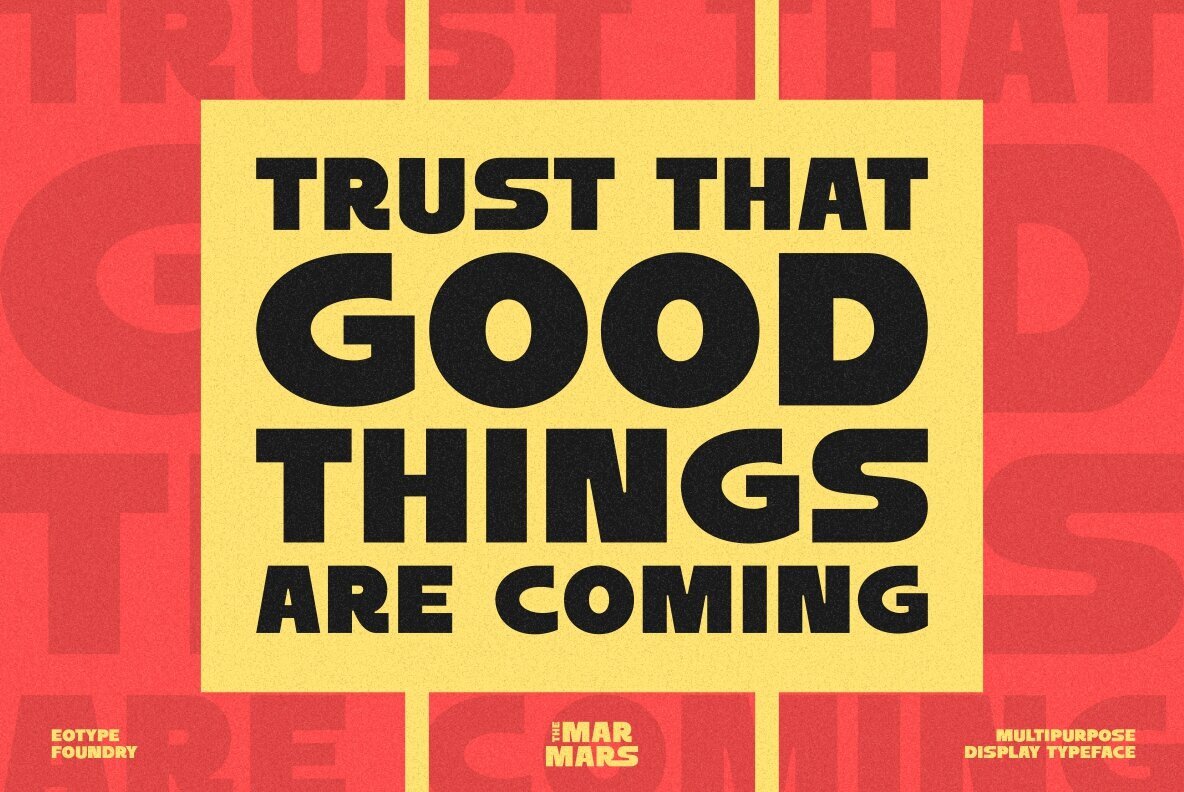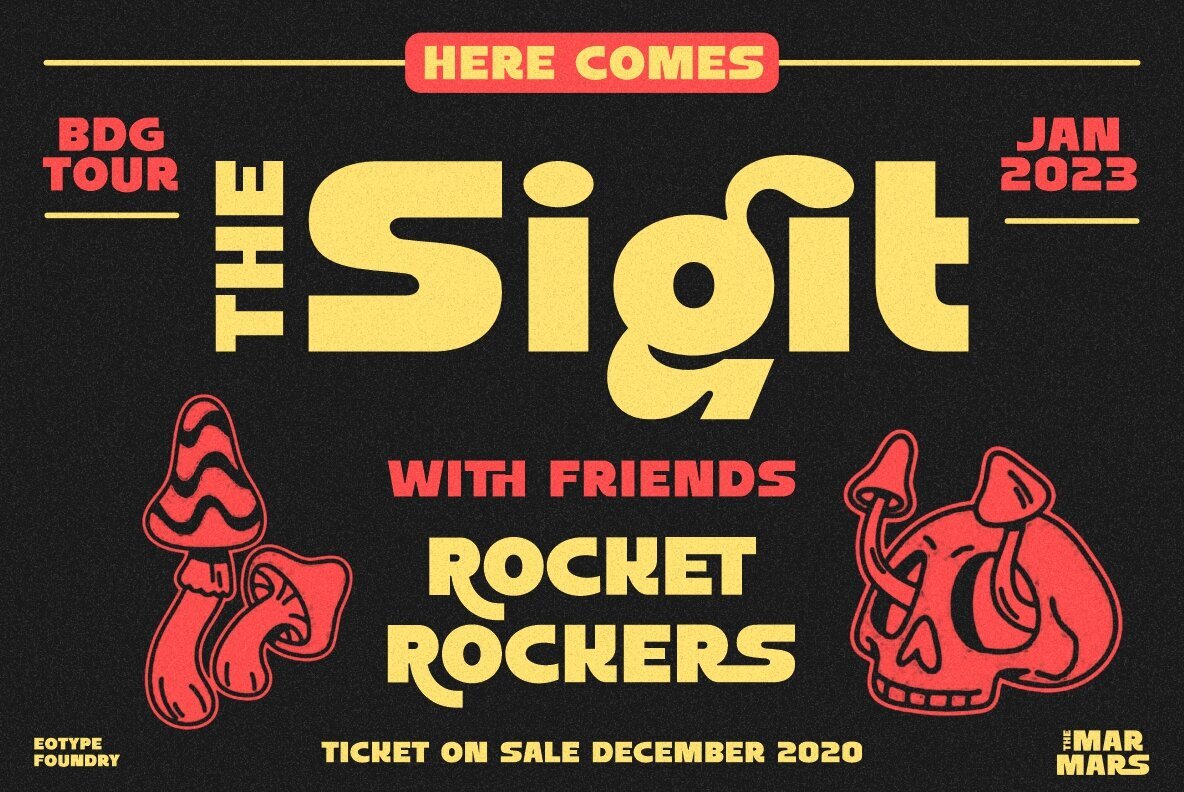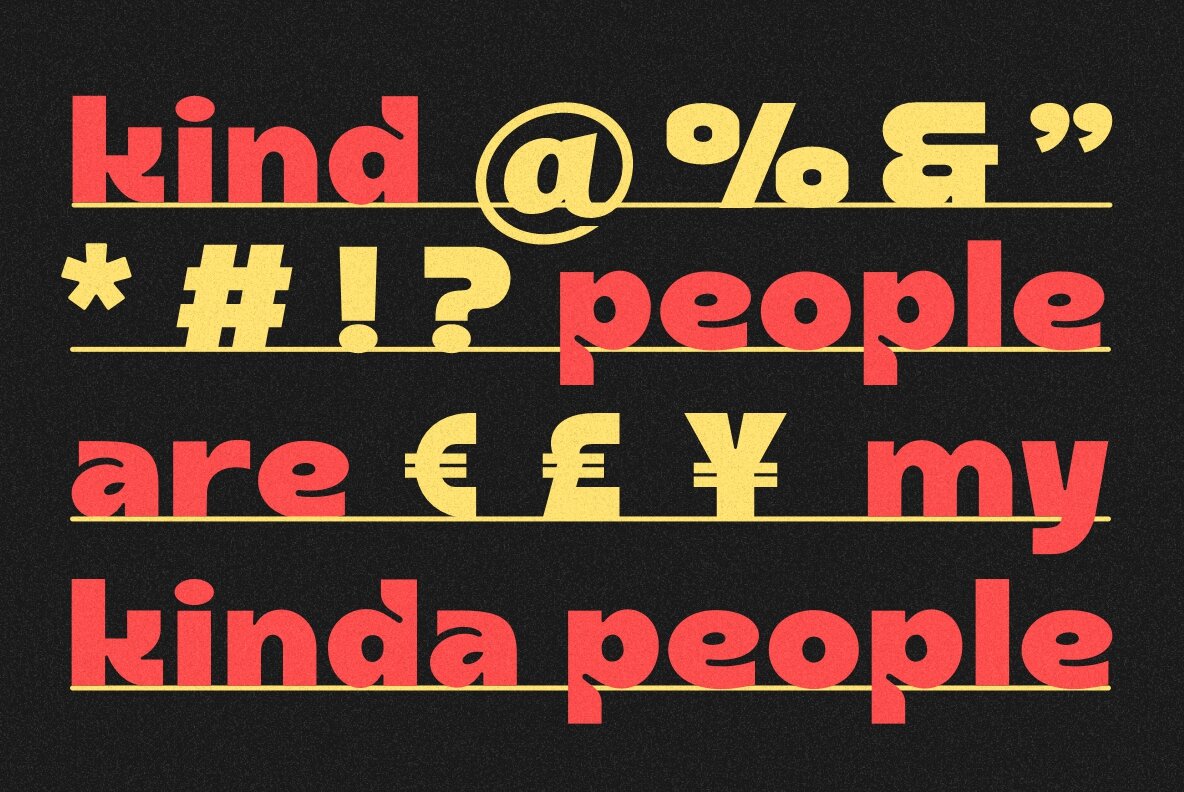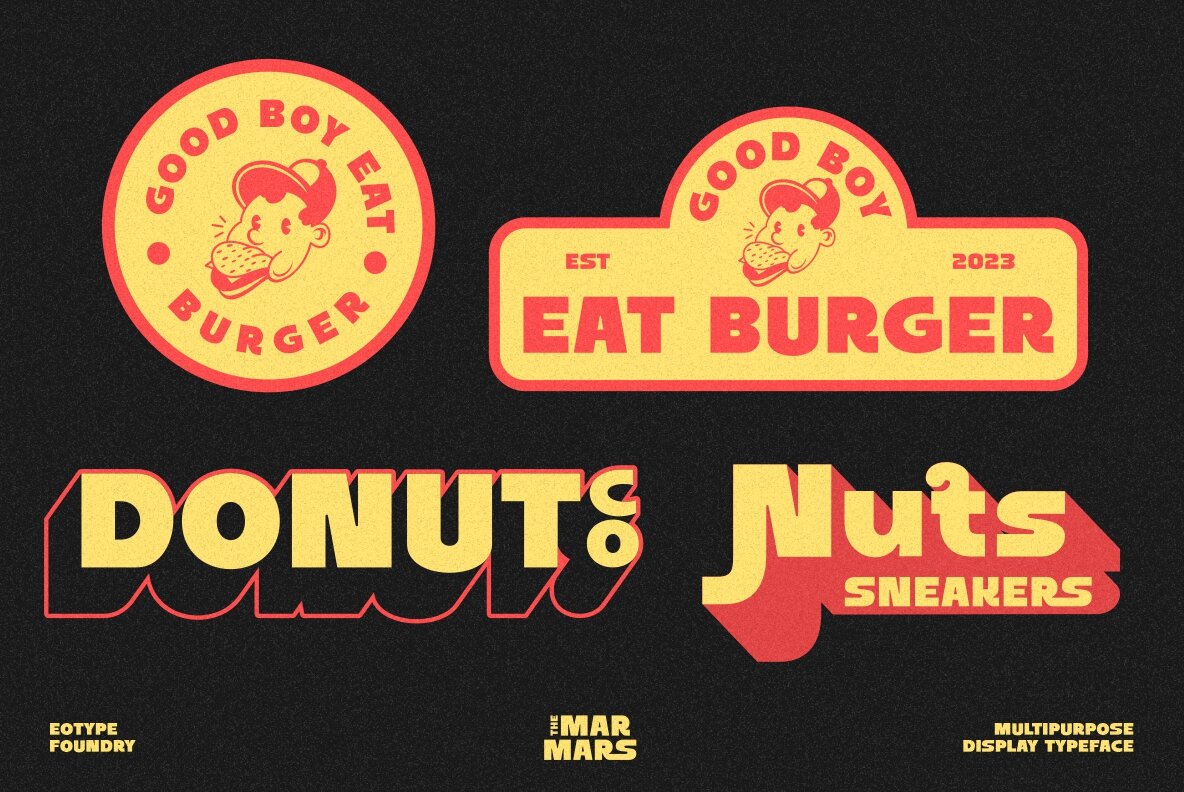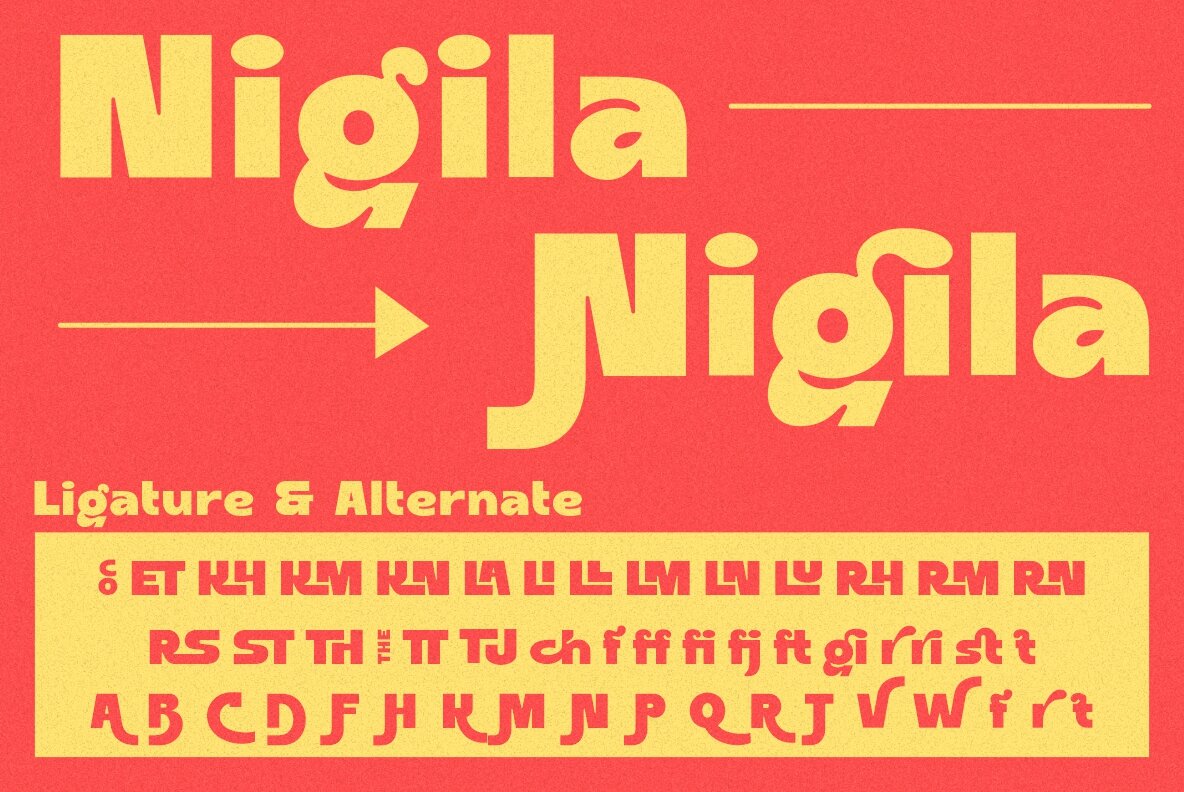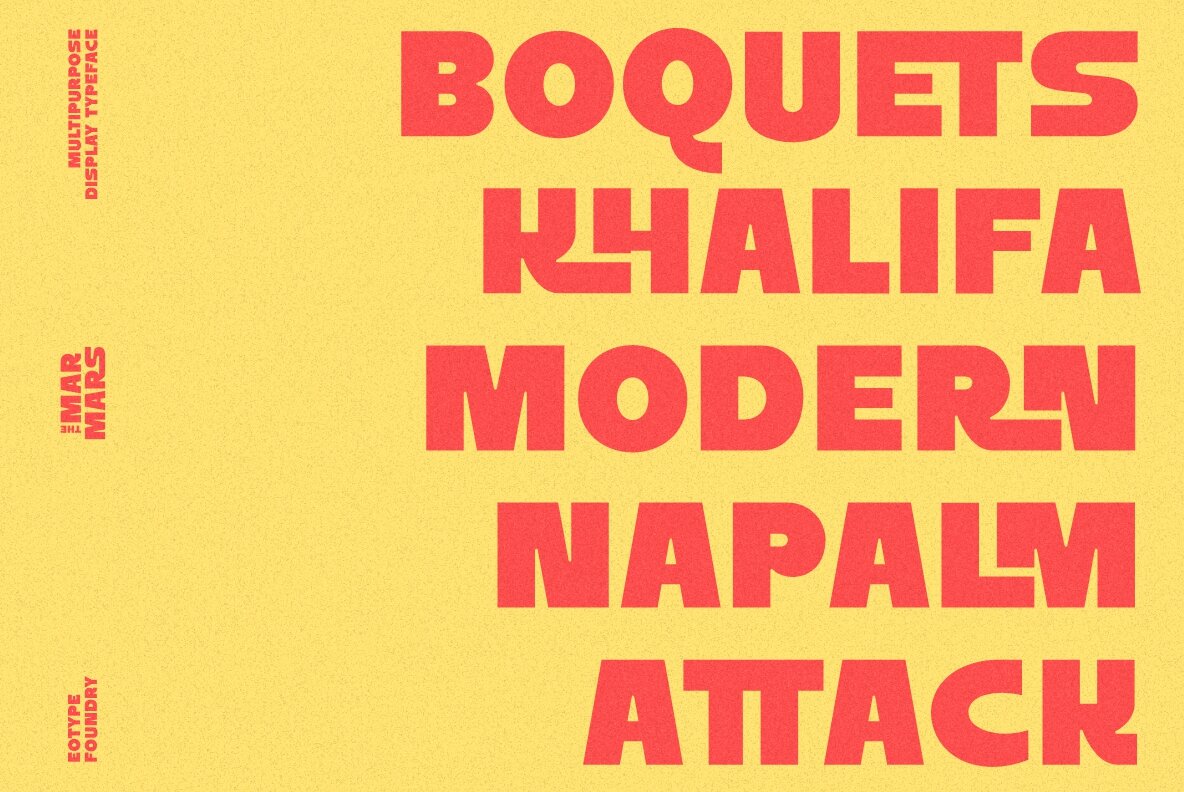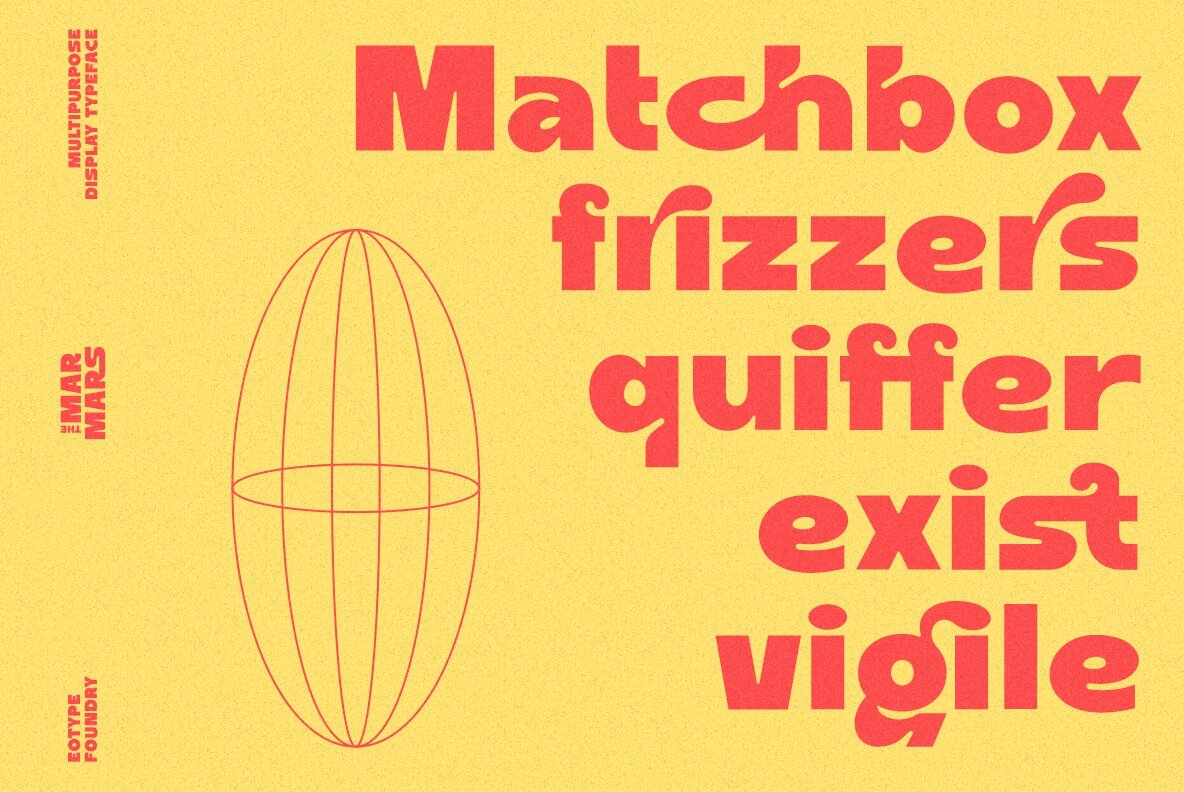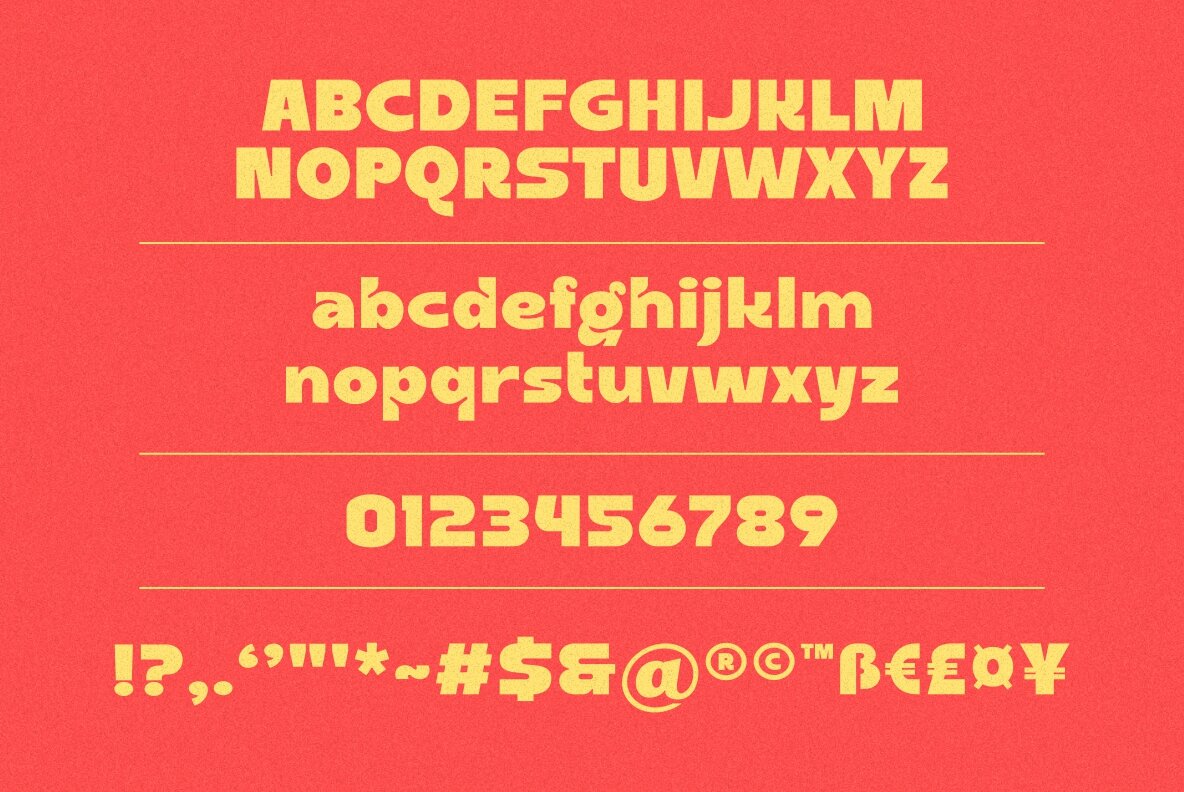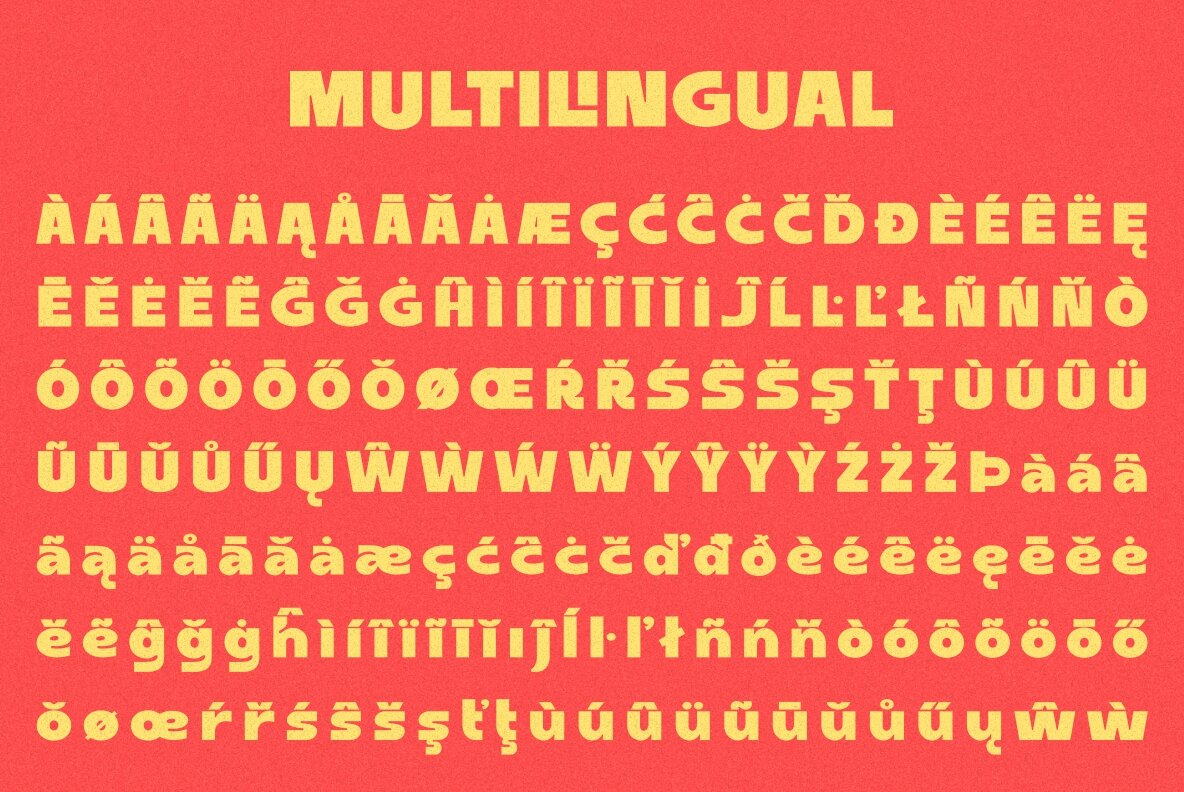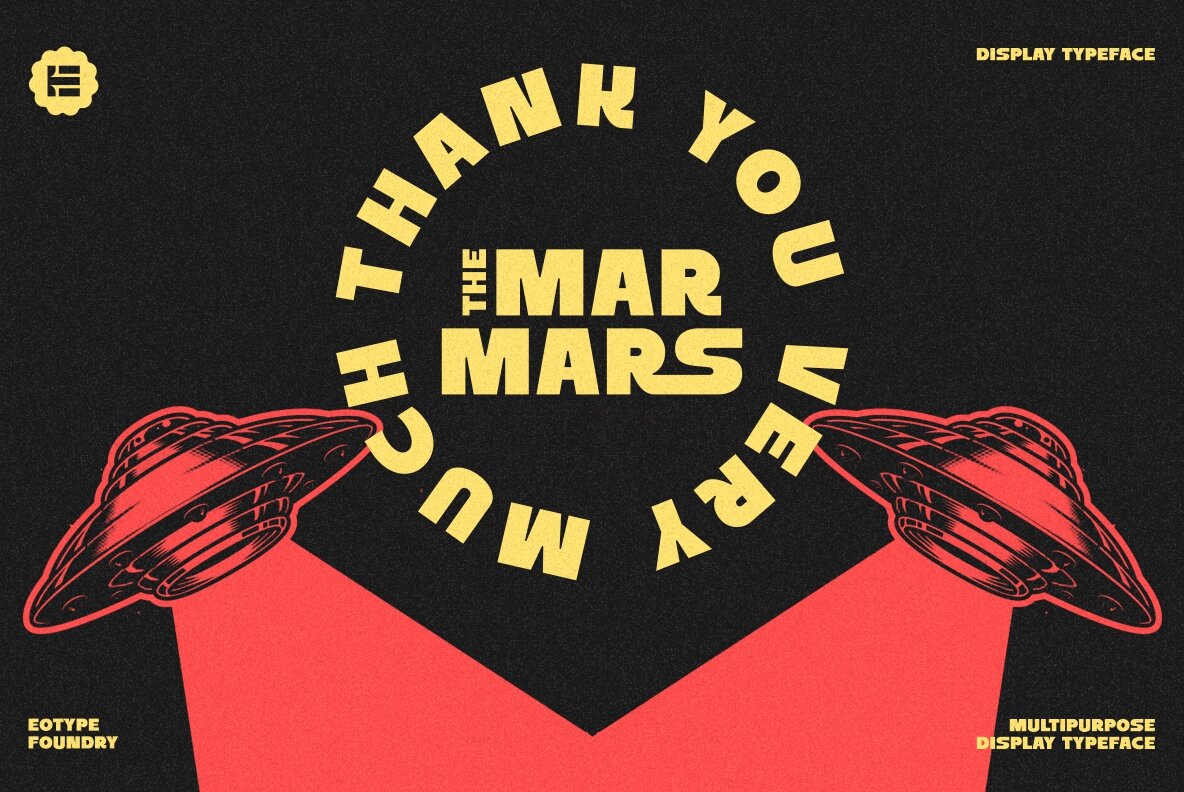
The Marmars Font
The Marmars Regular
The Marmars is a thick display typeface that has rounded edge and bold characteristics. This font can give your designs a playful and friendly impression. You can use this font for retro, vintage and urban designs.
This font comes with alternative style and ligature features which are suitable for various projects such as logos, product labels, posters and many more.